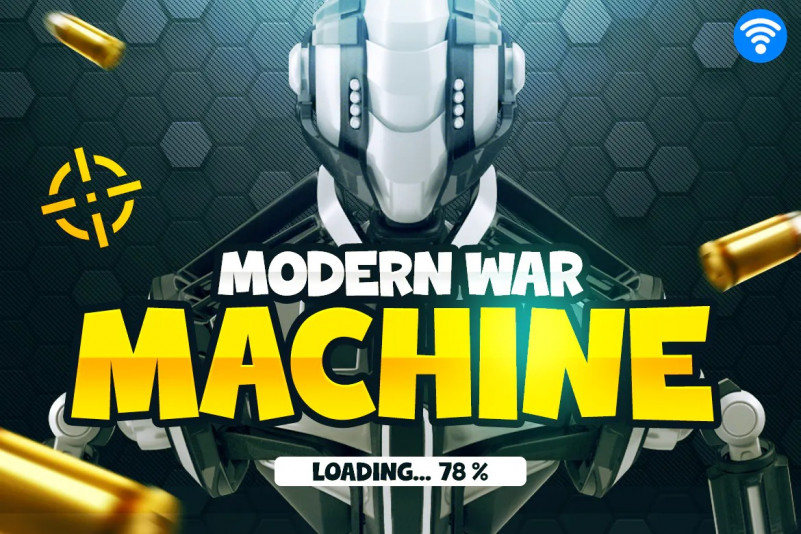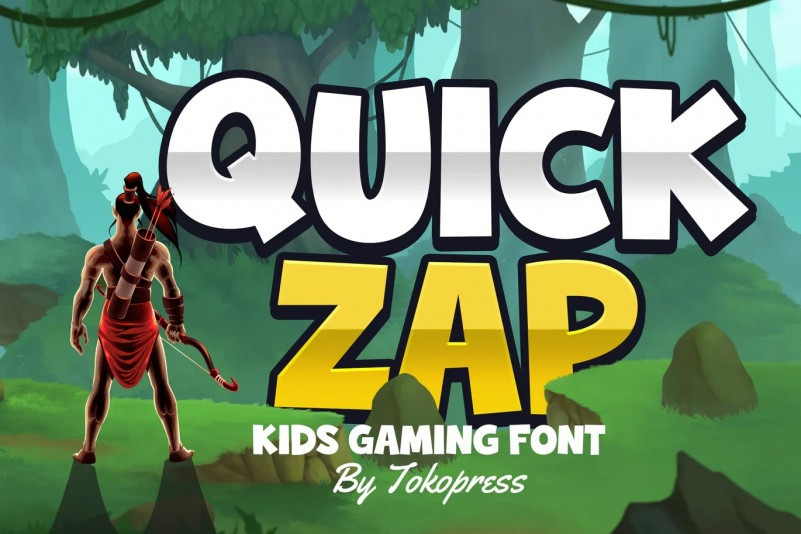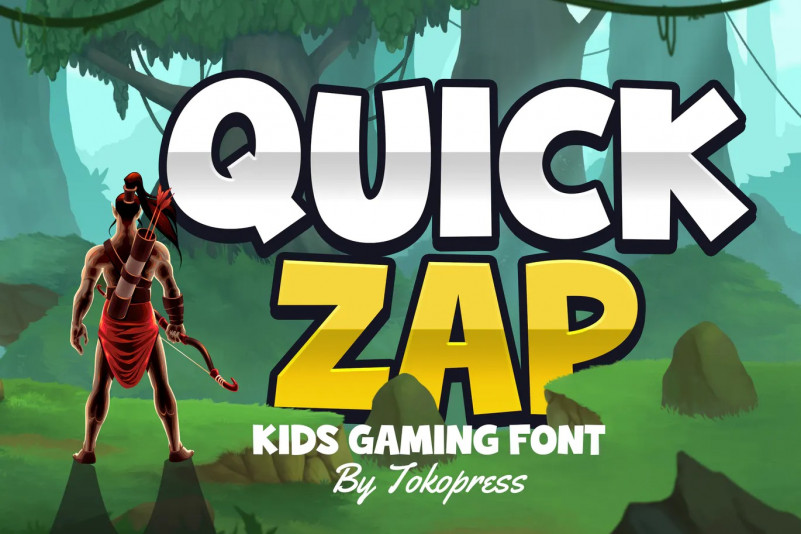
Quick Zap Font
The bold but playful sans serif shape will bring a lot of joy in kids heart.
Suit perfectly for kids market, online games, stationary, t-shirt and school supplies font, poster, movie title, youtube covers, youtube thumbnails, social media page covers and so on…